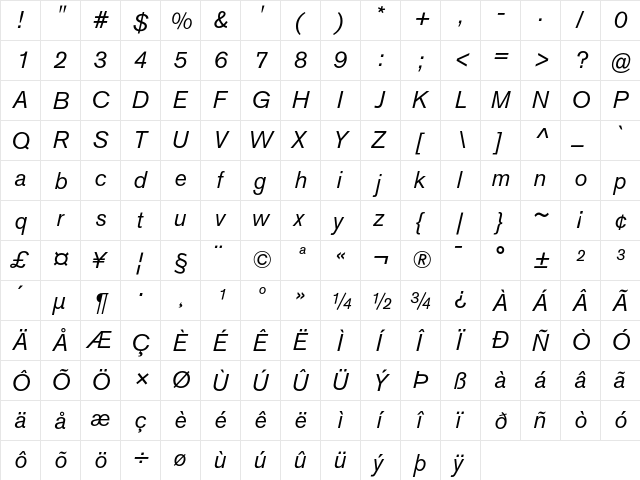
Akzidenz-Grotesk BQ Italic
Design Context for Akzidenz-Grotesk BQ Typeface
Akzidenz-Grotesk BQ has the quiet confidence of well-executed sans-serif typography: versatile, unobtrusive, and dependable at any size. Its italic angle brings a sense of urgency and motion to the letterforms.
Font Pairing: Works well alongside a characterful serif or display font that can carry the expressive load while Akzidenz-Grotesk BQ handles the functional copy.
Pro Tip: Use Akzidenz-Grotesk BQ for UI labels, navigation, and short-form body copy where clean legibility is the priority.